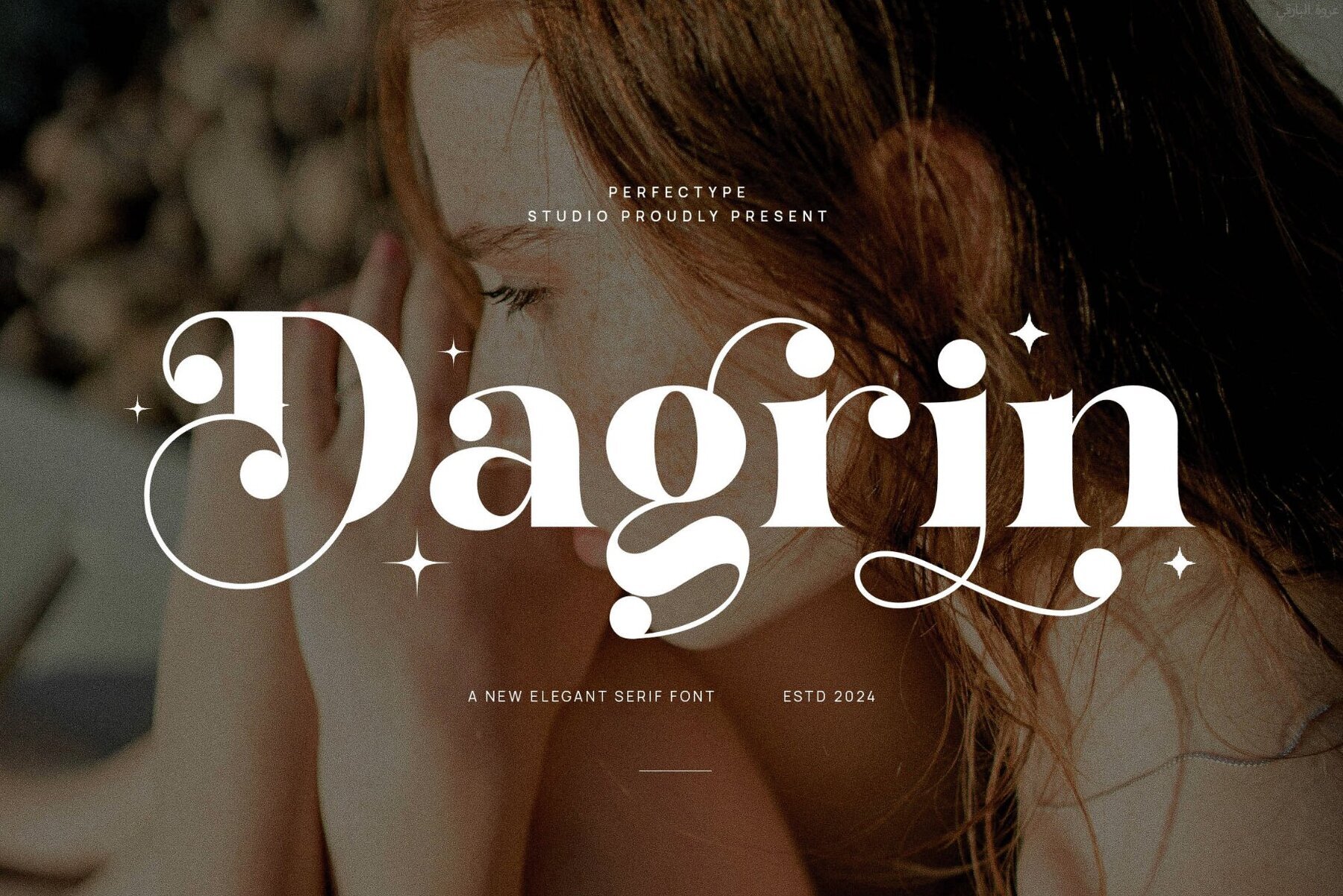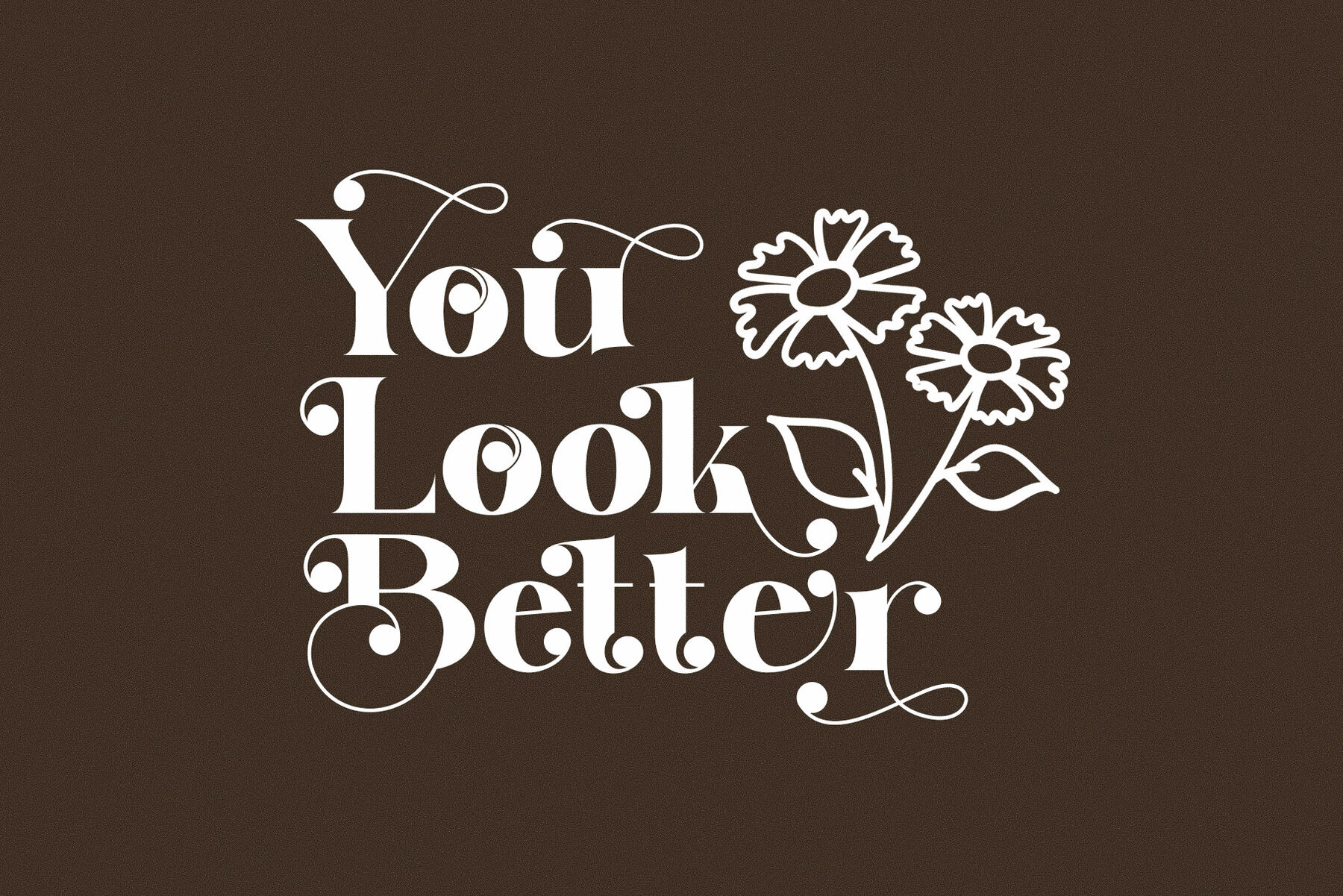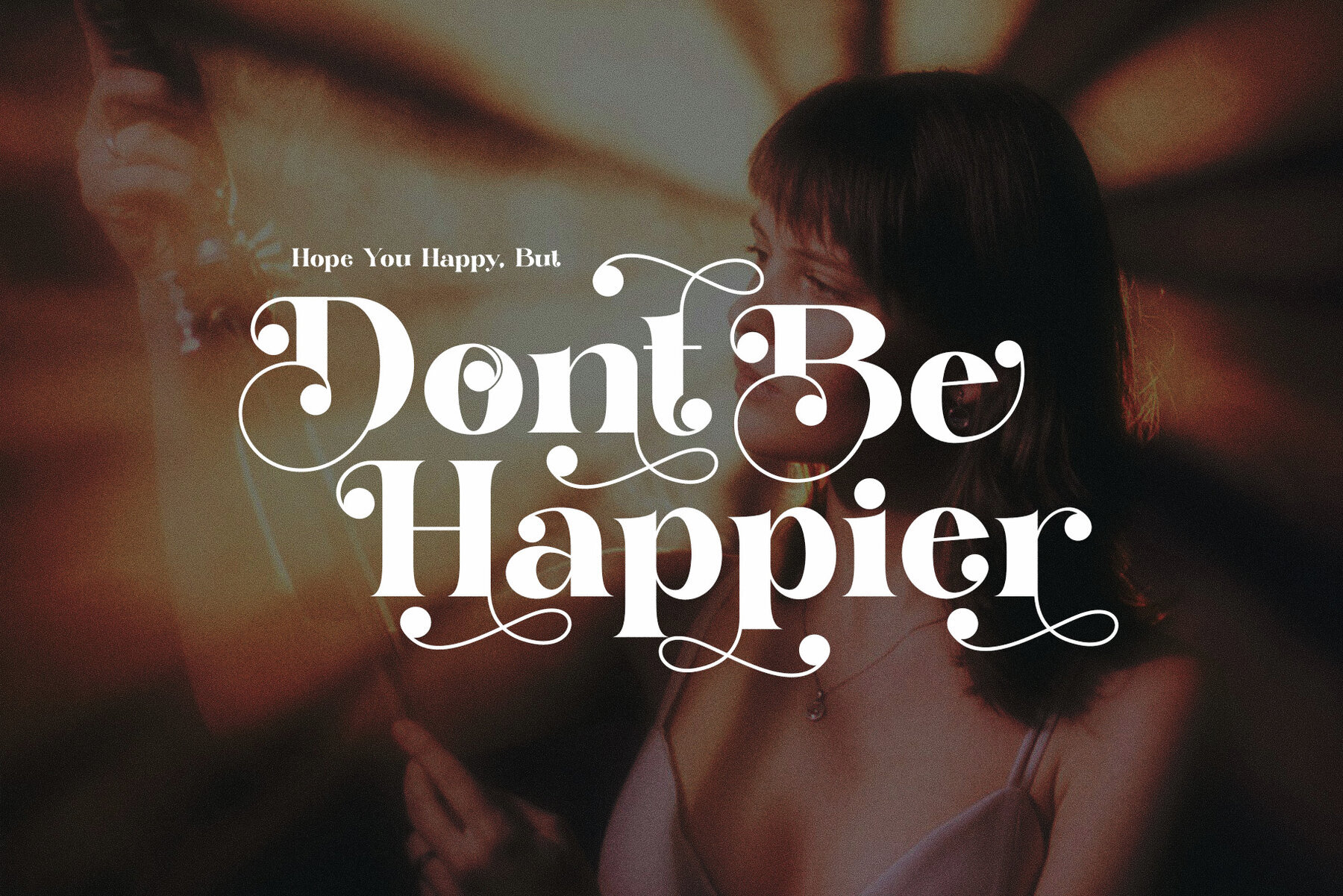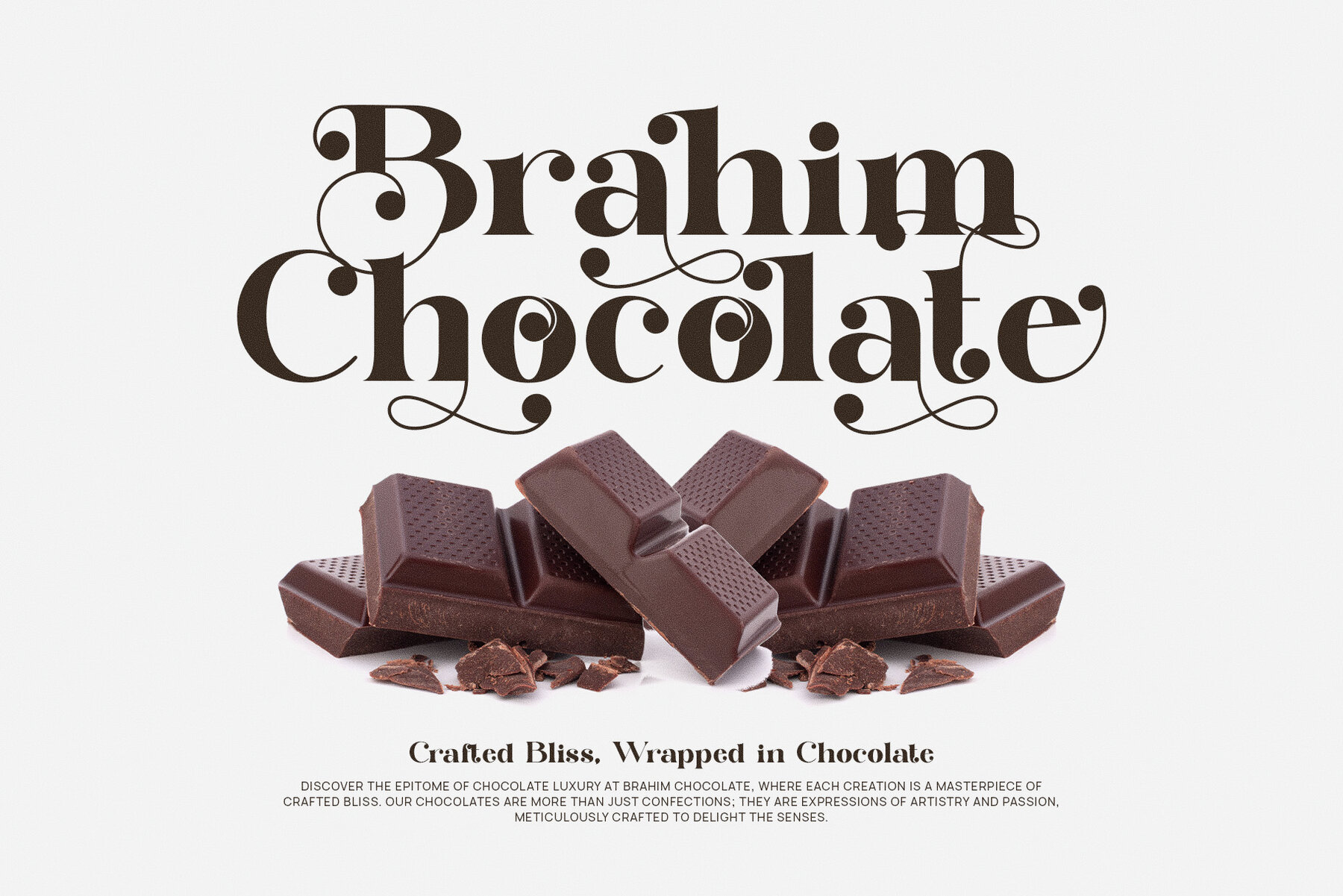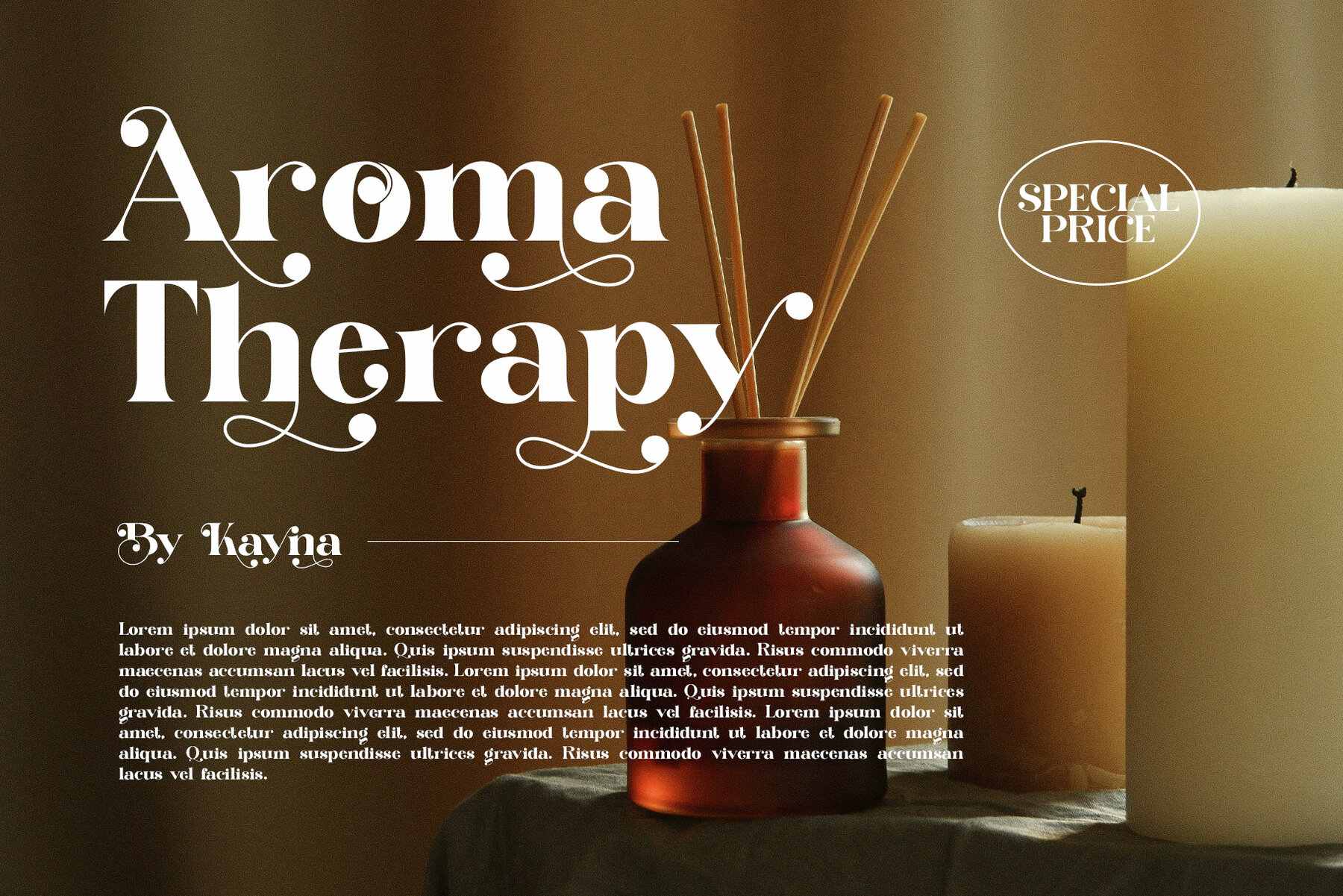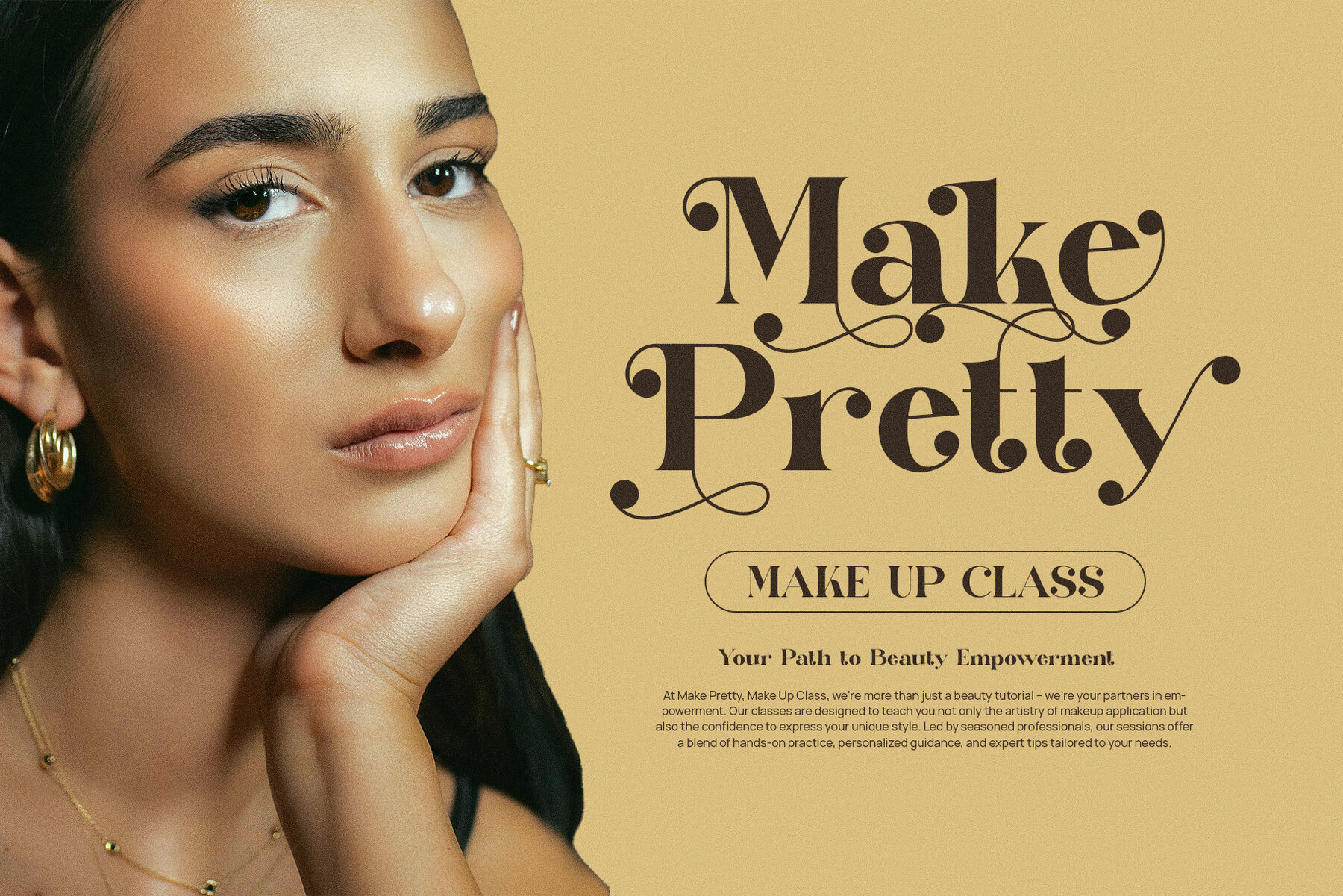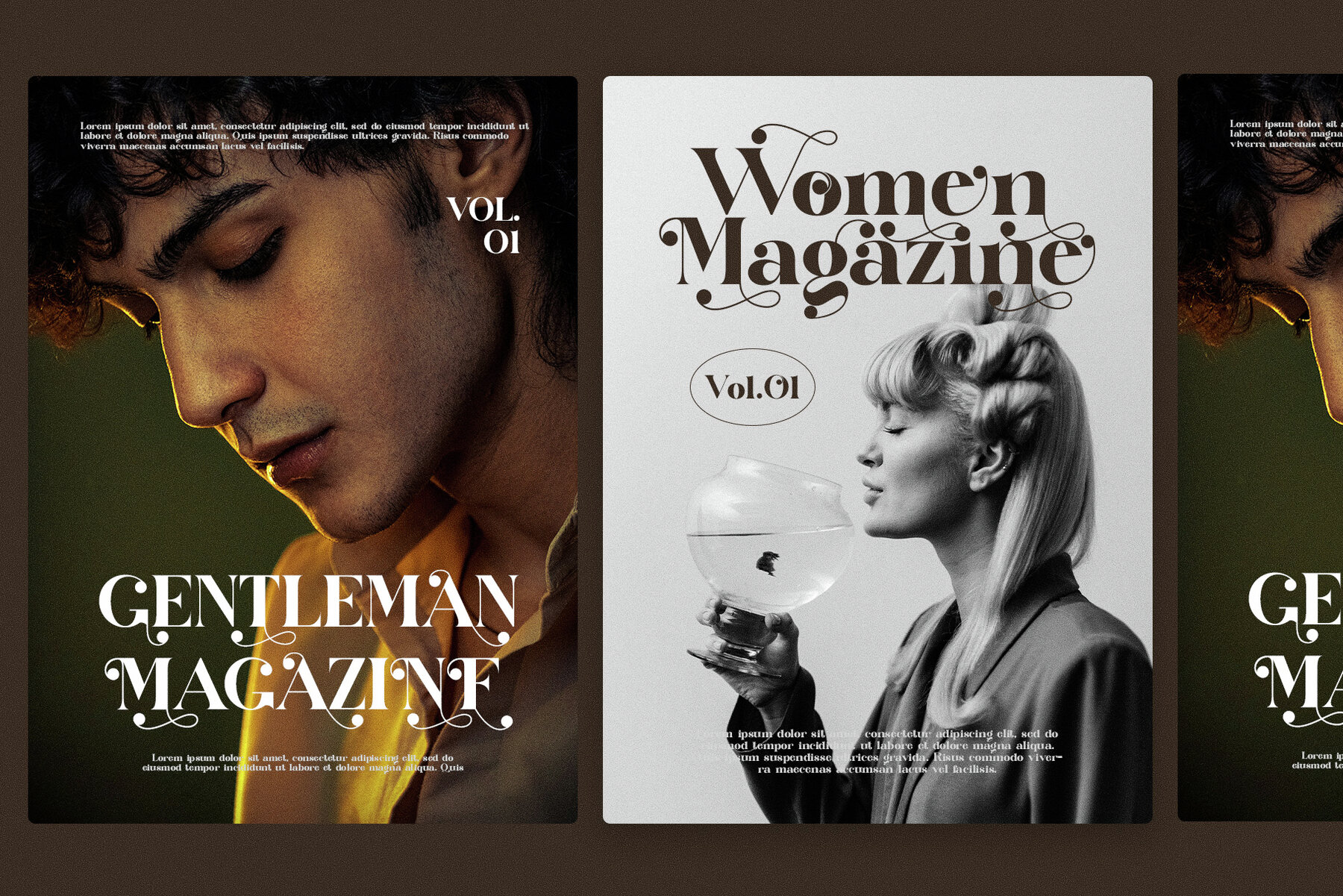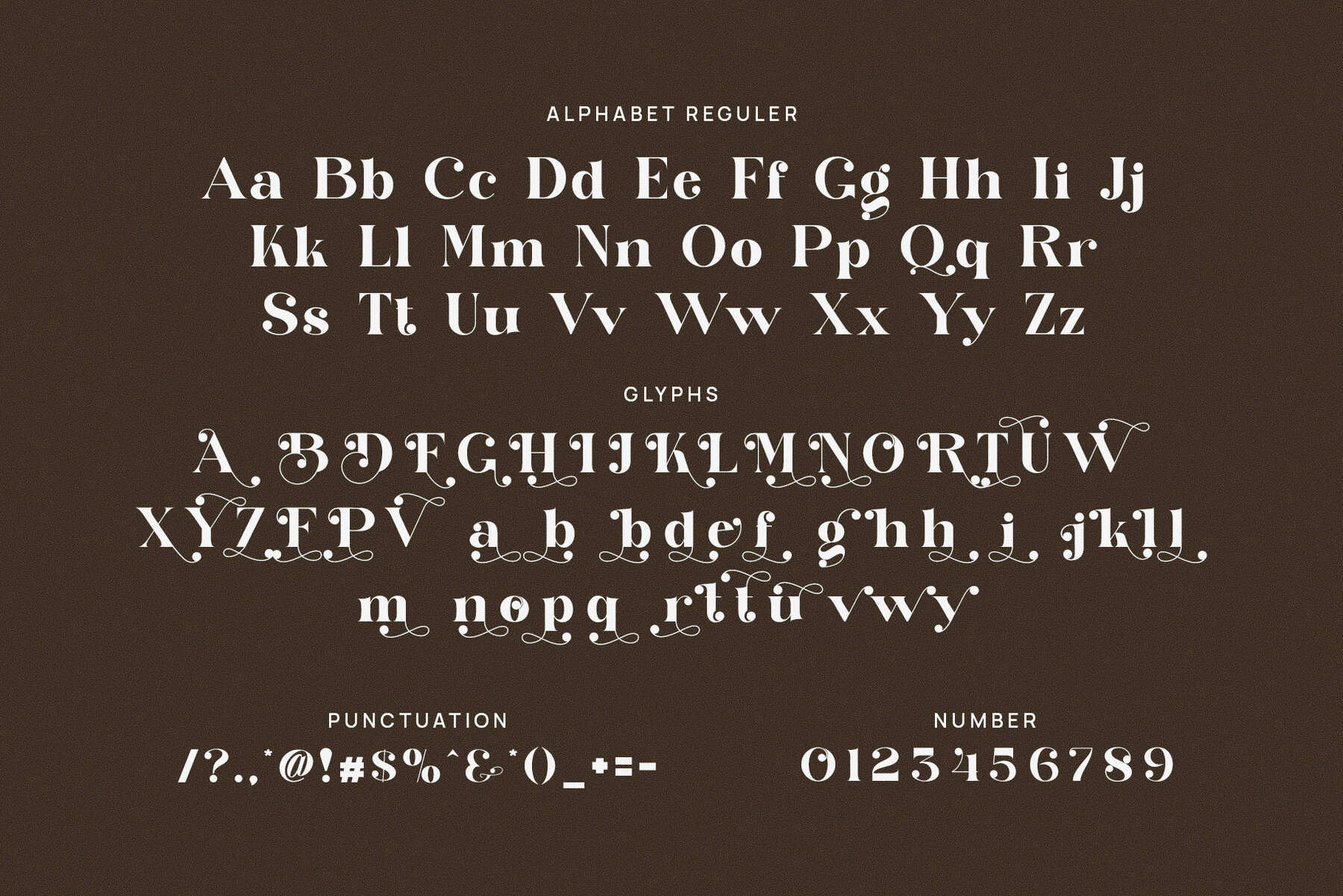
Discover Dagrin, the Elegant Serif Font by Perfectype Studio, where modern sophistication meets classic refinement. This stunning typeface is impeccably tailored for high-end branding, offering a luxurious touch to premium logos and sophisticated marketing materials. Whether creating a luxury brand identity, a boutique logo, or an exclusive advertisement, Dagrin enhances your projects with its exquisite style. What sets Dagrin apart are its beautiful ligatures and alternates, providing endless creative options to personalize your typography. This allows your designs—from magazine layouts to product packaging—to stand out with detail and character. Its elegant serif structure ensures both sophistication and clarity, ideal for various applications. Dagrin is perfect for websites, advertisements, editorial designs, and branding materials seeking a balance of elegance and modern appeal. Its legibility and clean lines adapt seamlessly to both print and digital platforms. With its thoughtfully crafted letterforms, Dagrin creates visual harmony while enhancing the overall design of any project. Whether for editorial layouts, product packaging, or advertisement campaigns, it offers a sophisticated solution for conveying timeless elegance with a contemporary twist. Choose Dagrin for your next project to leave a lasting impression of style and refinement.Dagrin Elegant Serif Font: A Timeless Blend of Elegance and Modernity